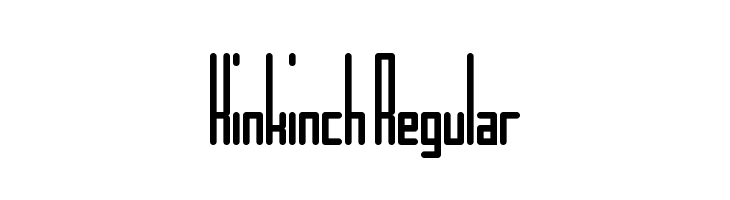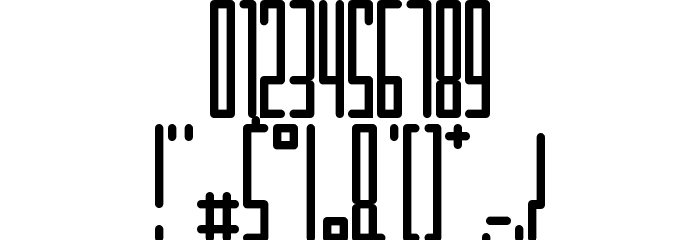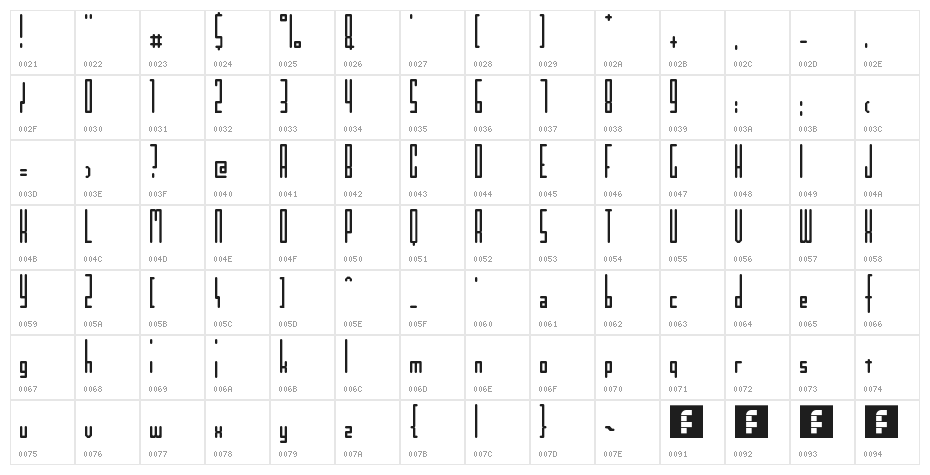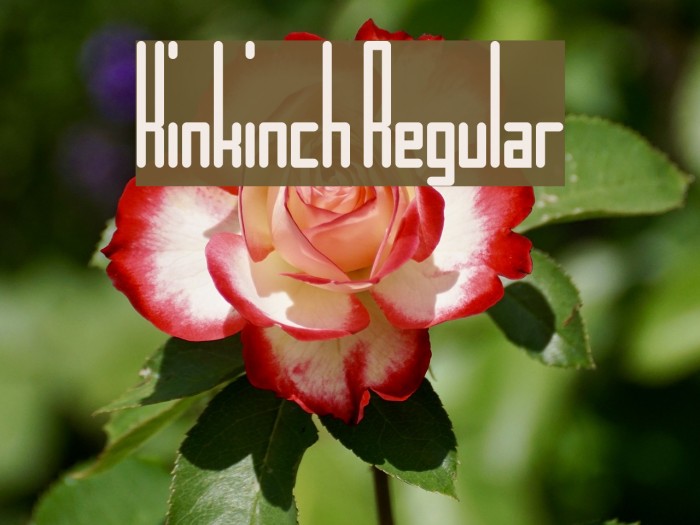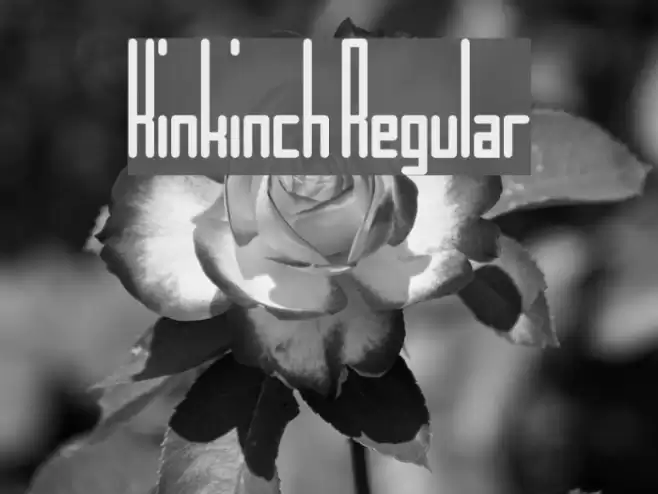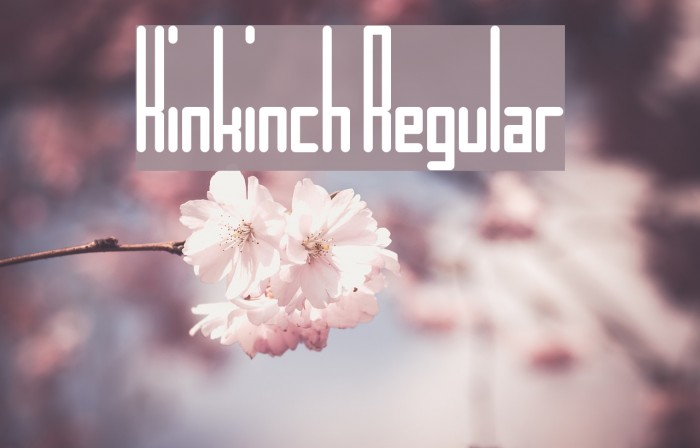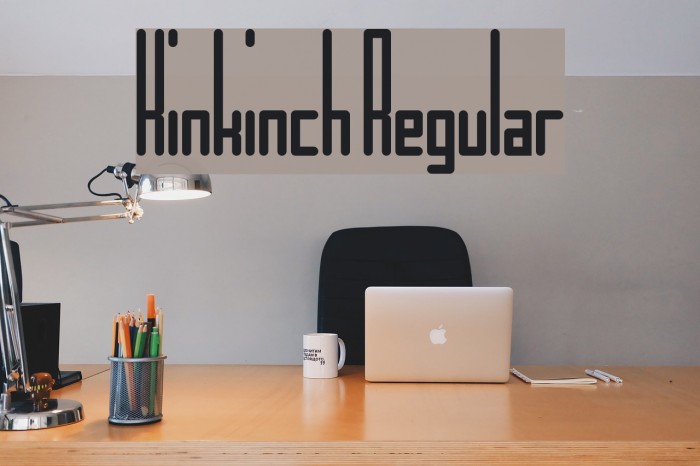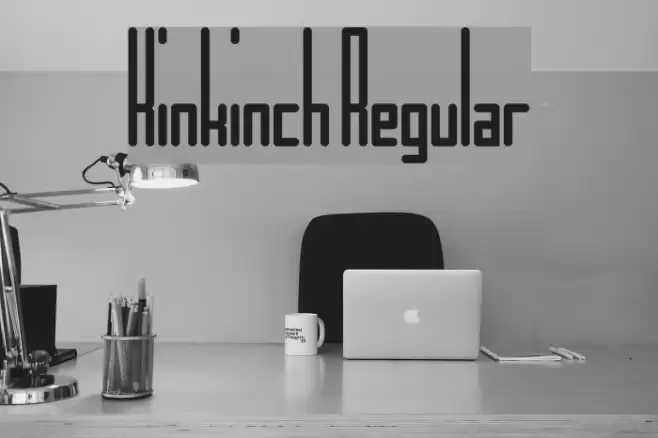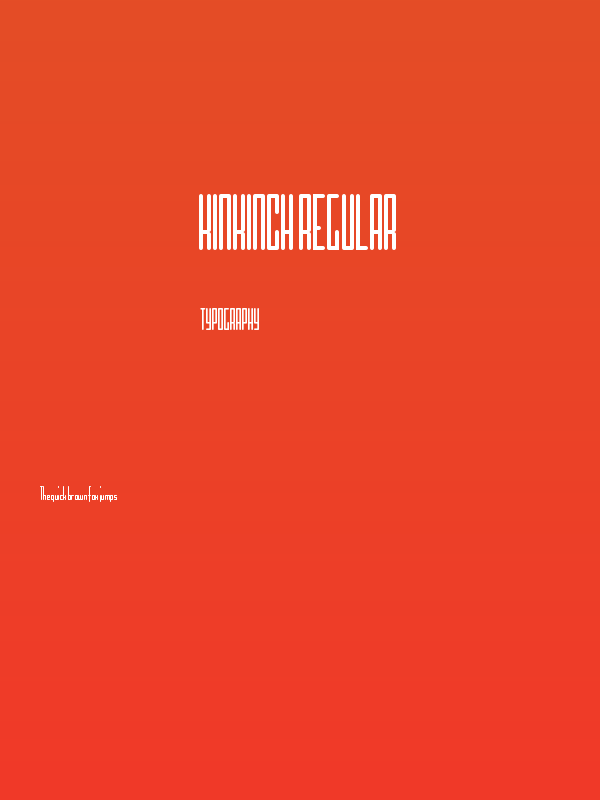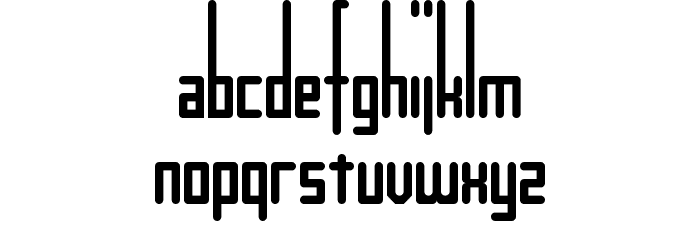
Kinkinch Regular Font
Kinkinch Regular Description
This font features a unique, modern design with elongated, narrow characters that give it a distinct appearance. The uppercase letters are tall and uniform in height, while the lowercase letters maintain a consistent style with slightly rounded edges. The numbers and special characters follow the same design principles, creating a cohesive look across all elements. The font's geometric structure and clean lines make it suitable for contemporary design projects. Its uniform stroke width and minimal contrast add to its sleek and stylish aesthetic.
| Proposed Projects | Ideal for futuristic branding, tech-related designs, modern posters, and digital interfaces. |